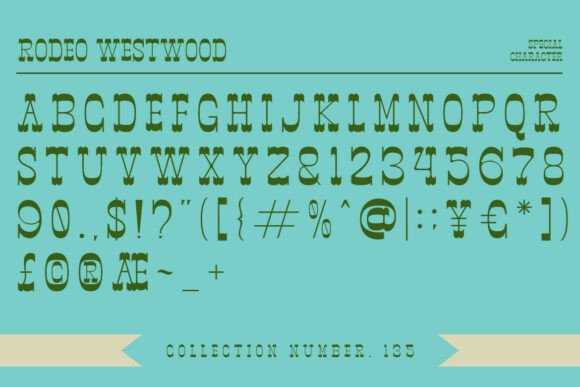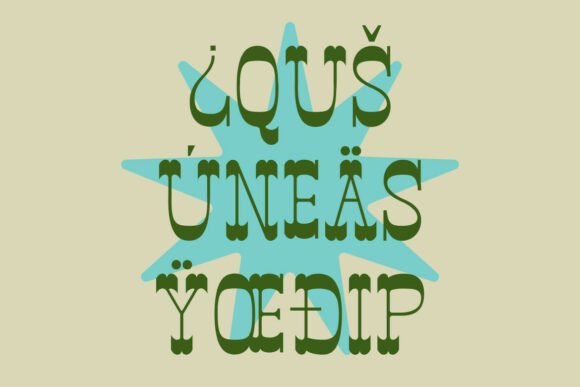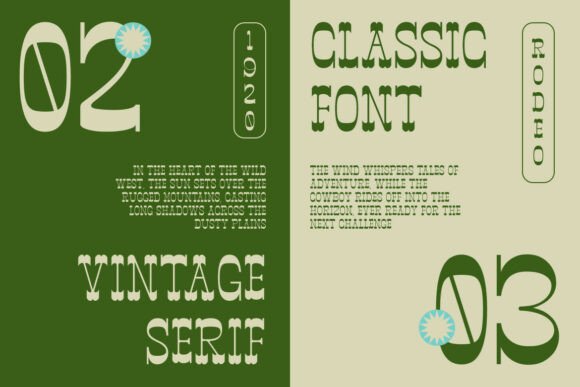
Introduction to Rodeo Westwood Font
Have you ever stumbled upon an old vintage poster in a dusty antique shop, and instantly felt the urge to bring that bygone era to life in your next creative project? For designers seeking to inject a dash of rugged charm and timeless authenticity into their work, the Rodeo Westwood Font is a game-changer. This distinctive slab serif typeface is the perfect design resource for anyone looking to tap into the wild west spirit, and its high-quality, free download makes it an accessible addition to any creative toolkit.
With its transparent background and bold, adventurous aesthetic, the Rodeo Westwood Font is an ideal choice for designers looking to add a touch of individuality and heritage to their work. Whether you’re crafting memorable brand identities, enhancing packaging designs with a sense of craftsmanship, or creating impactful headlines and layouts in editorial publications, this versatile font is sure to deliver.
Key Features of Rodeo Westwood Font
- Rodeo Westwood Font features a unique blend of western and modern styles, perfect for projects requiring a distinctive look.
- The font is designed to be highly legible, with clear lines and well-spaced characters, making it suitable for body text and headlines.
- Rodeo Westwood Font is available in multiple weights, from Light to Bold, providing ample options for designers to choose from.
Honest Review: Rodeo Westwood Font
As a designer, I’m always on the lookout for high-quality design resources to elevate my creative projects. Recently, I had the chance to try out the Rodeo Westwood Font, and here’s my honest take.
- The font has a unique, western-inspired aesthetic that’s perfect for projects with a rustic or country theme.
- The high-quality design ensures that the font looks great on various backgrounds, including transparent backgrounds.
- The font is highly versatile and can be used for a wide range of creative projects, from logos to signage.
- The font may not be suitable for projects that require a more modern or sleek aesthetic.
- The font’s western theme may not appeal to designers working on projects with a more urban or futuristic tone.
Overall, I’m impressed with the Rodeo Westwood Font’s unique design and versatility. While it may not be the best fit for every project, it’s an excellent addition to any designer’s toolkit, especially for those working on creative projects with a western or rustic theme.
Tips for Getting the Most Out of the Rodeo Westwood Font
To get the most out of the Rodeo Westwood Font, use it sparingly and in creative ways. Try using it as a headline font or as a decorative element in your design.
The Rodeo Westwood Font is perfect for:
- Designing posters and flyers
- Creating social media graphics
- Designing wedding invitations
- Adding a touch of whimsy to your branding